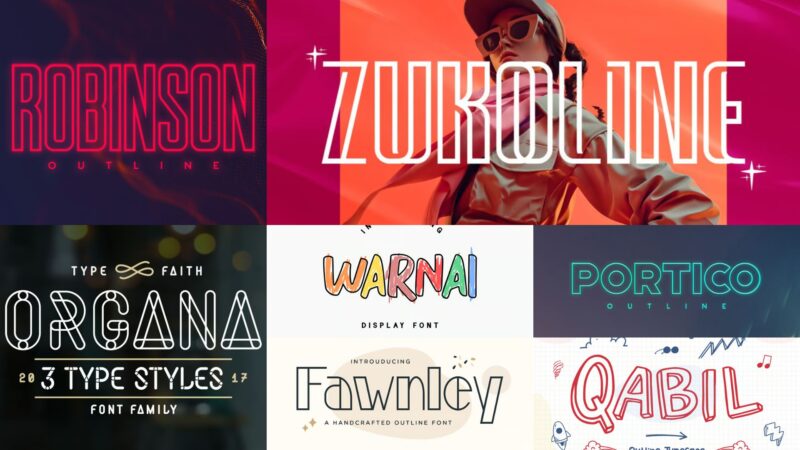
What if I told you that some of the most eye-catching typography relies on what’s NOT there? Meet outline fonts – the hollow, transparent letterforms that prove sometimes less truly is more.
These stroke-only characters, with their see-through centers and bold outer edges, create an instantly recognizable aesthetic that’s simultaneously cutting-edge and classic. As someone who’s navigated the typography trenches for years, I’ve watched outline fonts transform ordinary designs into showstoppers time and time again.
Whether you call them hollow fonts, stroke fonts, or outline typography, these distinctive letterforms offer designers a unique way to make text pop without overwhelming the visual hierarchy. Ready to master this powerful typographic tool? Pour yourself something caffeinated and let’s unlock the secrets of using outline fonts like a pro in 2026!
What Makes Outline Fonts So Captivating?
Outline fonts possess a unique visual quality that sets them apart from their solid counterparts. Here’s what gives these fonts their distinctive appeal:
Transparency and Lightness The hollow nature of outline fonts creates an airy, lightweight feeling that can make designs feel less heavy and more approachable. Unlike solid fonts that create visual weight, outline fonts allow background elements to show through, creating layers and depth.
Modern Minimalism There’s an inherently modern quality to outline fonts that aligns perfectly with contemporary design trends. They embody the “less is more” philosophy while still maintaining strong visual impact.
Versatile Layering One of the most exciting aspects of outline fonts is their ability to work beautifully in layered compositions. You can place solid text behind them, use background images, or create stunning color overlays that wouldn’t work with traditional fonts.
Attention-Grabbing Without Being Overwhelming Outline fonts strike the perfect balance between making a statement and maintaining readability. They catch the eye without screaming for attention, making them ideal for headlines and display text.
The Best Outline Fonts of 2026
Robinson Outline
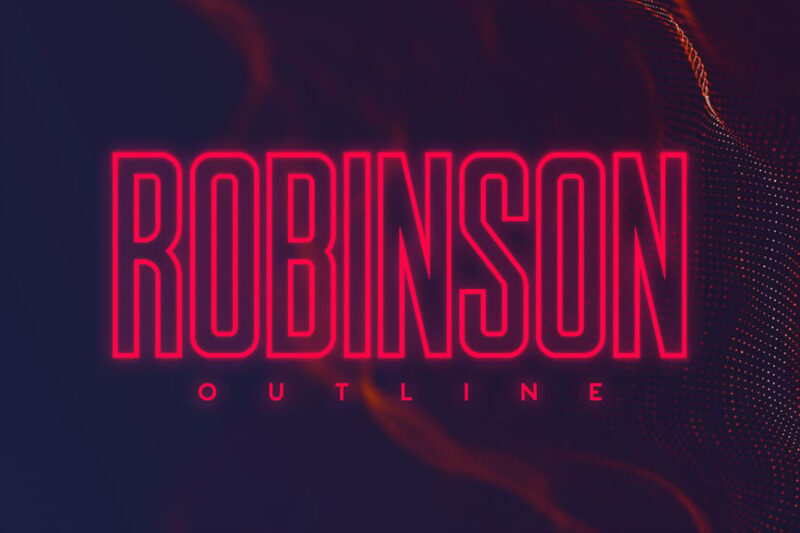
Robinson Outline is a striking sans-serif decorative font with a neon-inspired design. Its bold outline style makes it perfect for eye-catching headlines and modern graphic designs that require a futuristic or tech-savvy look.
Zukoline
Zukoline is an elegant outline display font that combines sleek lines with a touch of sophistication. Its versatile design makes it suitable for a wide range of applications, from logos to editorial layouts, offering a modern and stylish aesthetic.
Prospec Outline
Prospec Outline is a decorative font designed for digital applications. Its clean, precise outlines give it a technical feel, making it ideal for technology-related designs, futuristic concepts, or any project requiring a modern, cutting-edge appearance.
Fawnley
Fawnley is a charming handcrafted outline font that exudes warmth and personality. Its delicate, hand-drawn style makes it perfect for designs that require a soft, approachable feel, such as invitations, packaging, or branding for artisanal products.
Sweet Balgona
Sweet Balgona is a playful outline font with a groovy, retro vibe. Its funky letterforms and college-inspired design make it ideal for creating eye-catching titles, posters, or branding materials for youth-oriented or nostalgic projects.
Cookie Outline
Cookie Outline is a cute sans-serif font with a delightful outline style. Its playful character and alternate glyphs make it perfect for designs targeting children or for projects that require a friendly, approachable aesthetic.
Gremlin
Gremlin is a unique outline typeface with a distinctive personality. Its quirky design and bold presence make it ideal for creating standout labels, logos, or headline text that demands attention and leaves a lasting impression.
Ralixet-Outline
Ralixet-Outline is a sleek sans-serif font with a modern outline style. Its clean lines and balanced proportions make it versatile for various typographic applications, from contemporary branding to digital interfaces.
Portico Outline
Portico Outline is a bold sans-serif font with a striking outline design. Its strong presence and architectural feel make it perfect for creating impactful headlines, posters, or logo designs that require a modern and confident look.
Hikou Outline
Hikou Outline is a stylish sans-serif decorative font with a sleek outline style. Its modern aesthetic and clean lines make it ideal for creating sophisticated designs in fashion, technology, or lifestyle branding.
Remember, the key to successful outline font usage lies in understanding your context, testing thoroughly, and always prioritizing readability alongside aesthetic appeal. With the right approach, these transparent typographic gems can become powerful allies in your design toolkit.
So next time you’re looking to add some visual flair to your typography, consider giving outline fonts a try. Your designs – and your clients – will thank you for it!